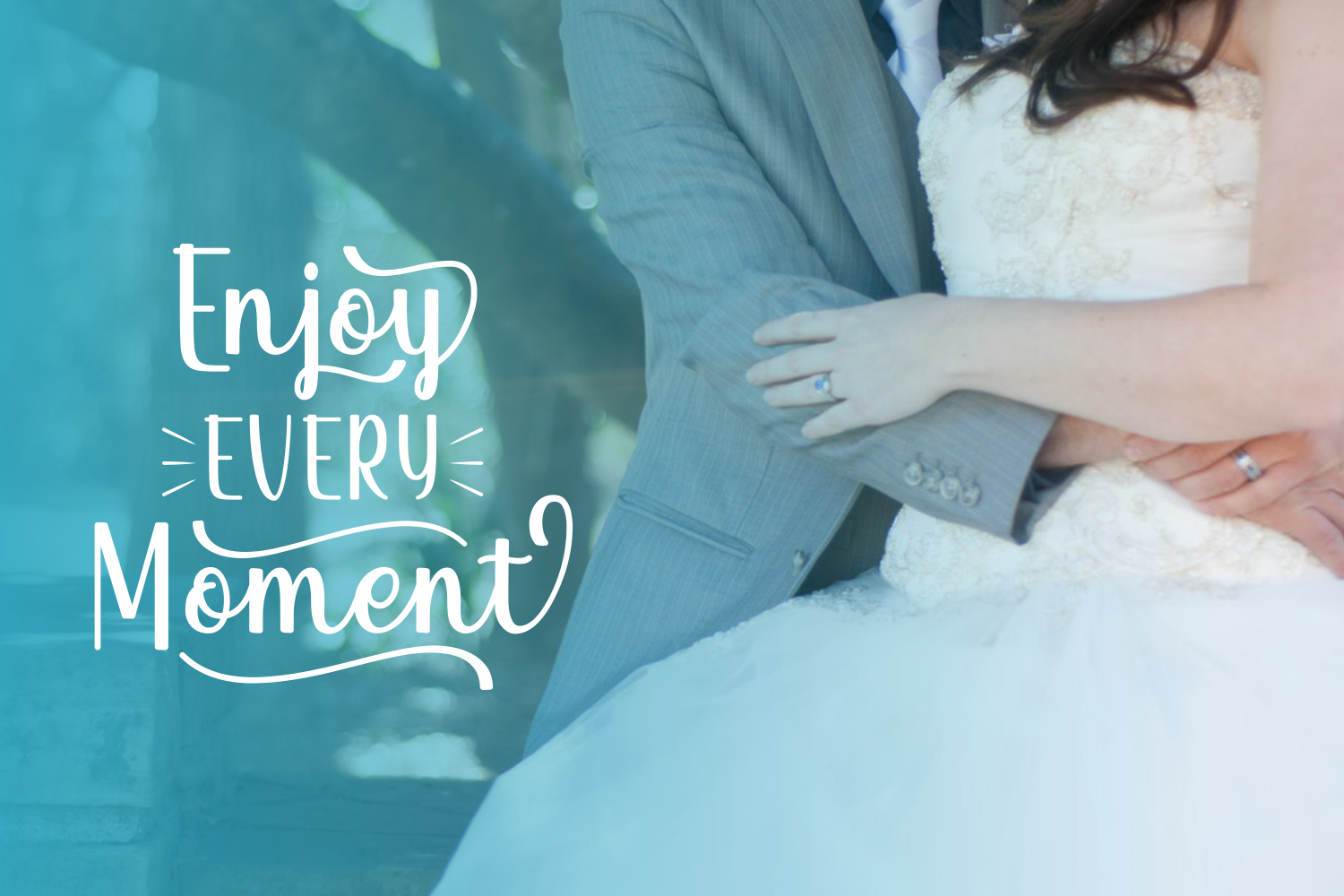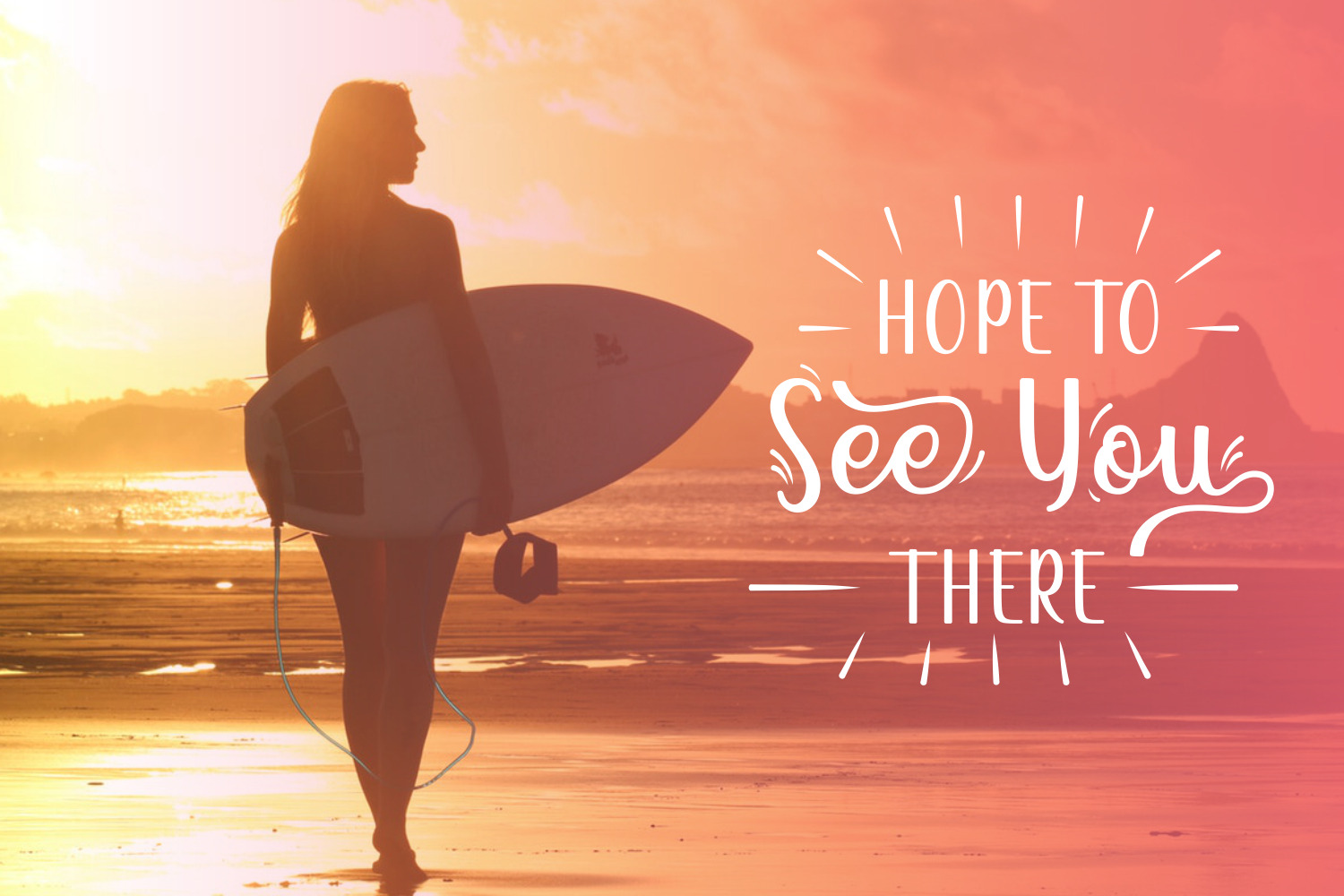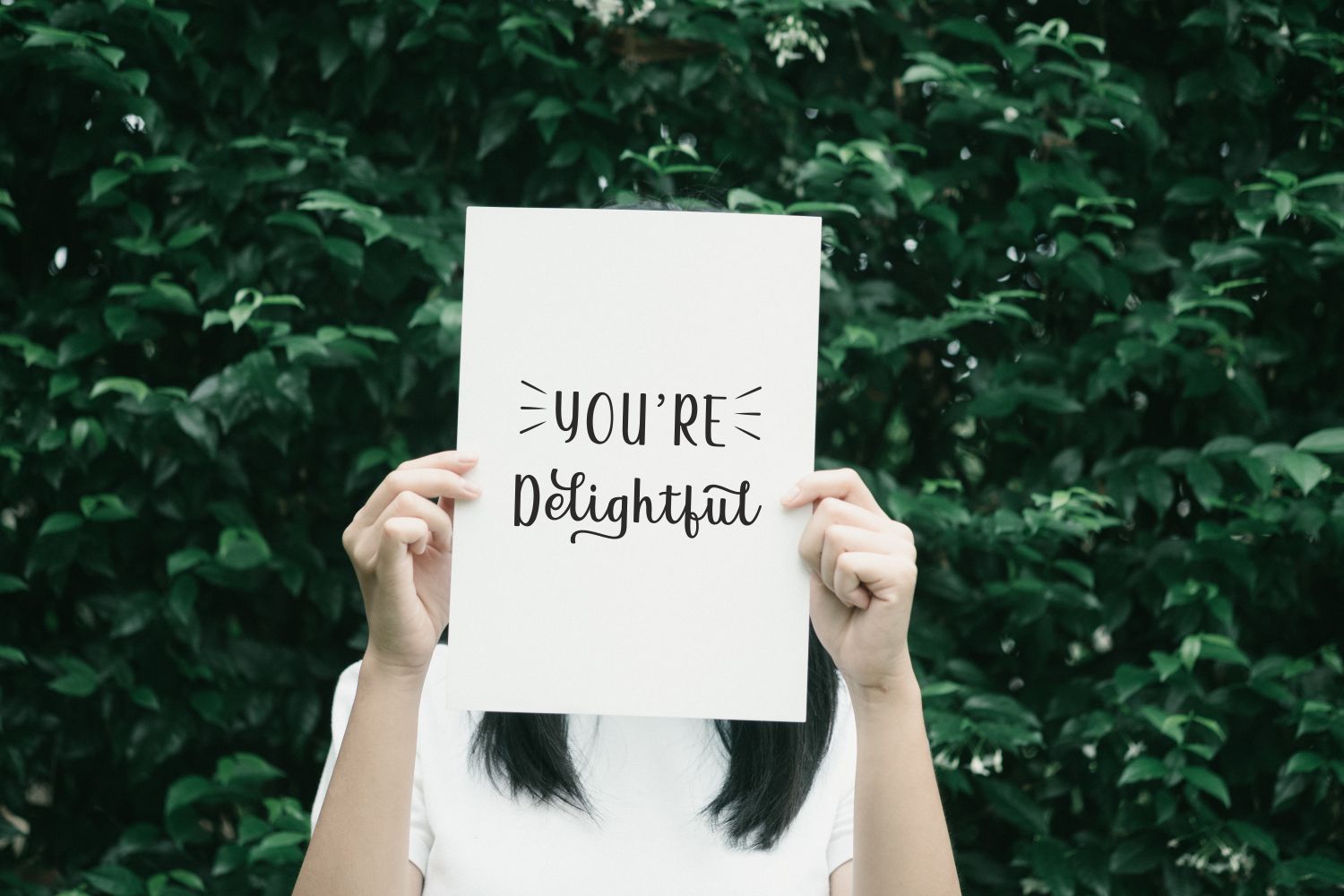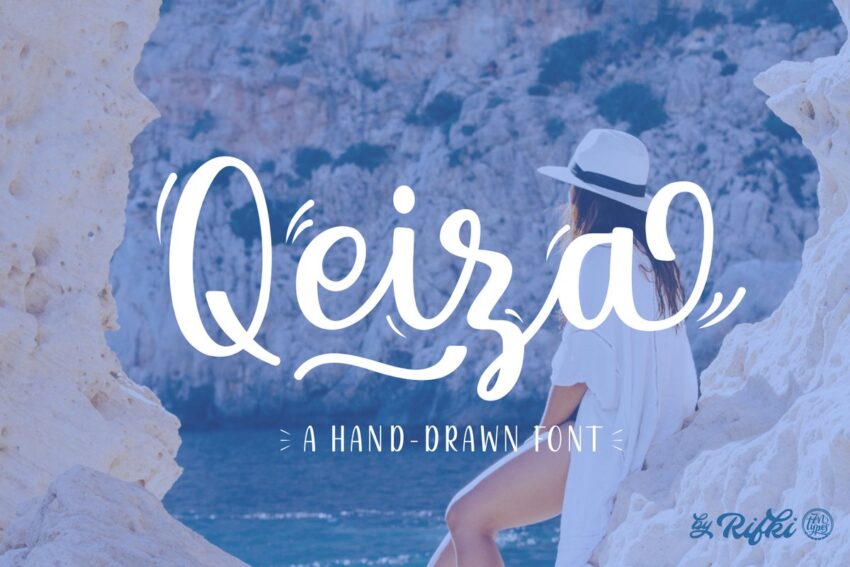
Introduction to Qeiza Font
Qeiza is a gorgeous script font, ideal for a wide range of designs and projects.
This handwritten font is a great way to give your designs a homey and personable feel without compromising on style .